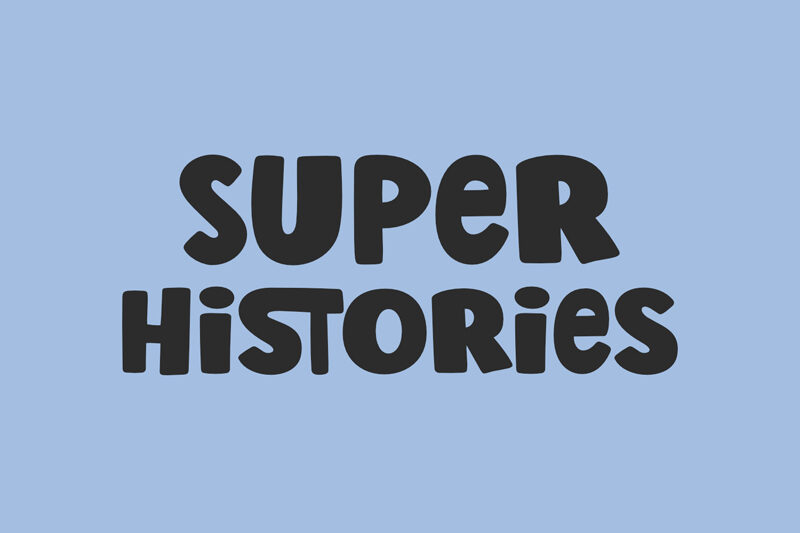
Super Histories is a playful, cartoon-style font designed by fsuarez913. Featuring bold, animated lettering with high-contrast weight and friendly rounded curves, it delivers a lively, energetic aesthetic perfect for comic books, children’s media, posters, dynamic branding, and creative headlines.